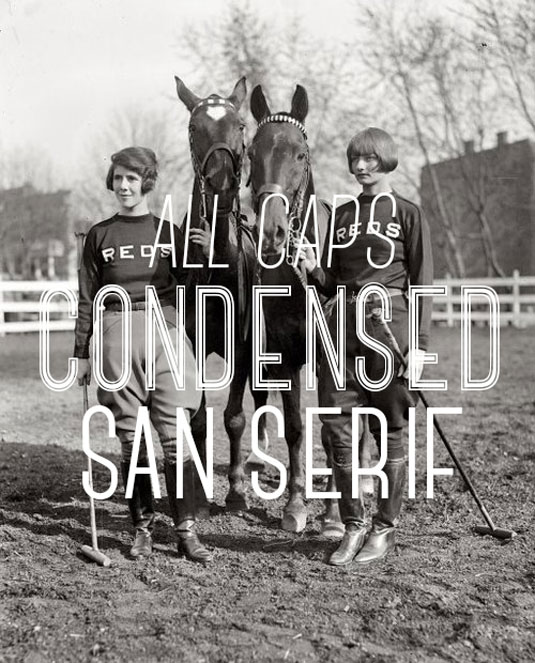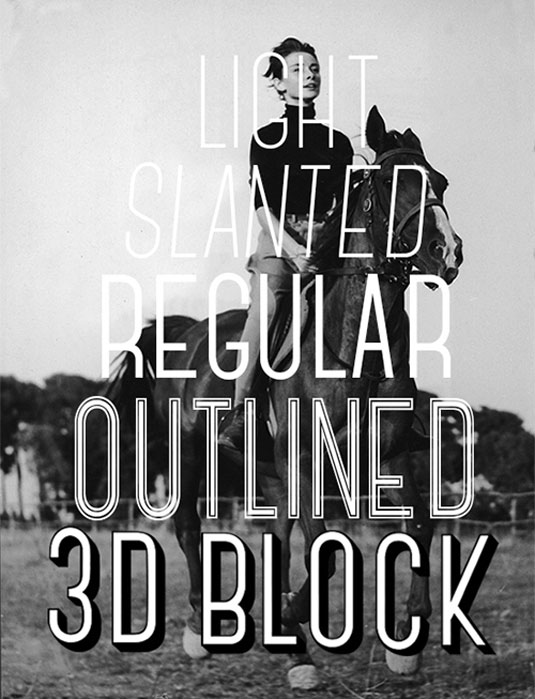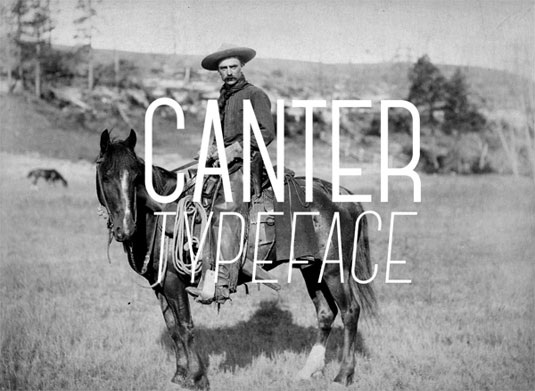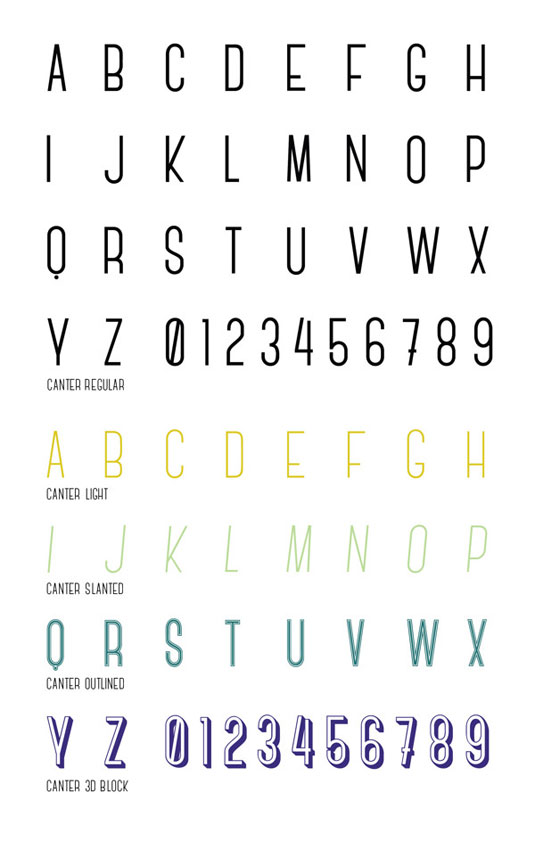
Font of the day: Canter
Canter by Christopher J Lee
Today's font choice is from Brooklyn based graphic designer Christopher J Lee. Canter is an all caps, condensed typeface available in five different weights, designed as a display type for titles, headlines, and posters.
Lee says, "This was my first attempt using FontLab Studio, so please bear with me! All of the Canter weights are ready for download, just ask if you want a copy." If this is what he can create for his first attempt, we can't wait to see what he comes up with next.